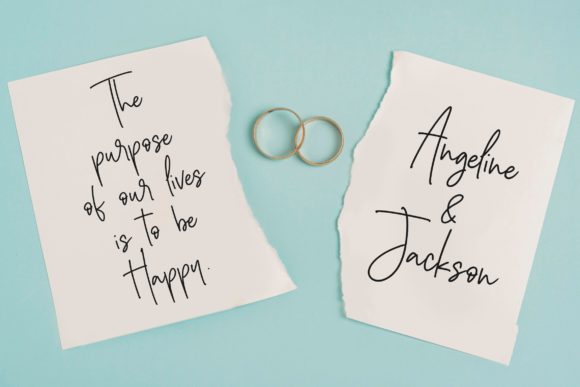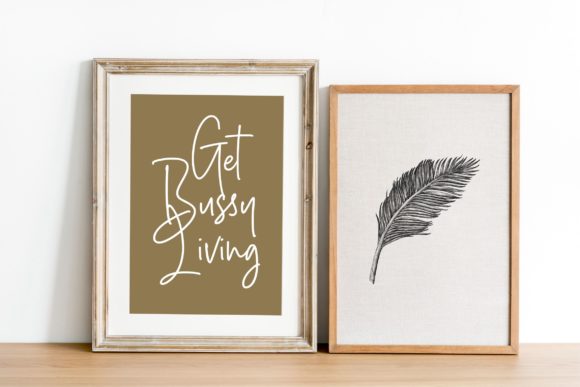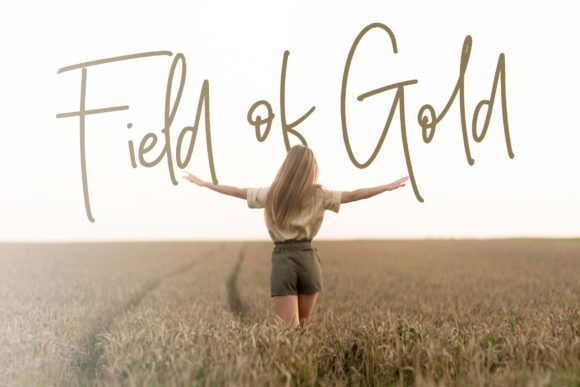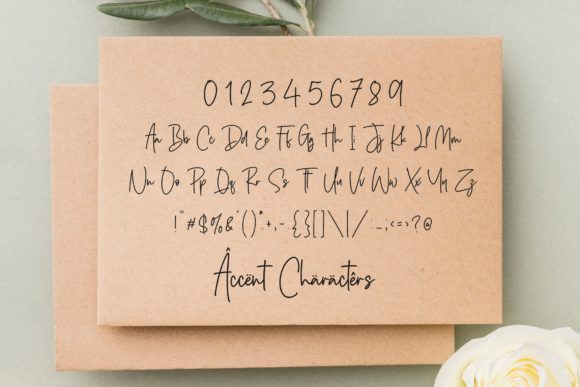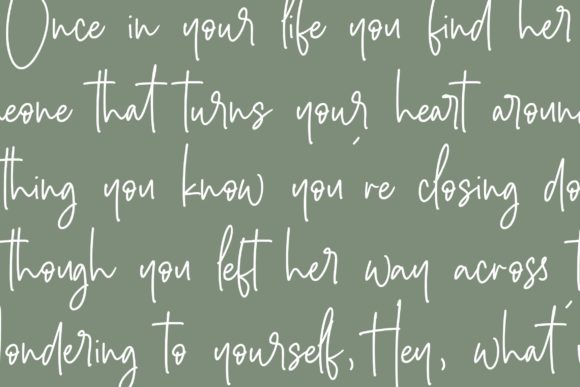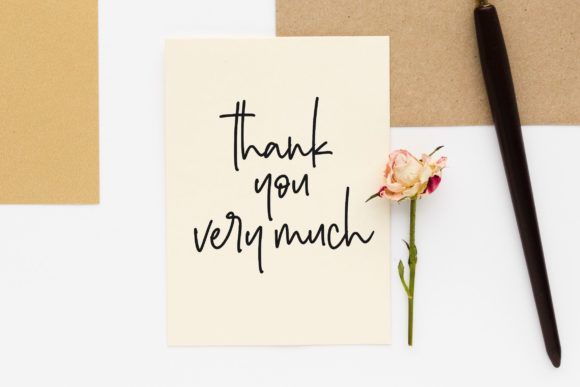
Introduction to Silver Buttercup Font
Have you ever stared at a blank canvas, feeling the weight of creativity on your shoulders, and then – BAM! – an idea strikes, and your imagination runs wild? That’s exactly what happened to me the first time I laid eyes on the Silver Buttercup Font. Its elegant, handwritten touch had me smitten, and I knew I had to dive in and explore its full potential.
The Silver Buttercup Font is more than just a pretty face – it’s a valuable design resource that can elevate your creative projects to new heights. With its high-quality, flowing script, you’ll be able to craft stunning designs that are sure to impress. Whether you’re working on a free download project or need a font for a commercial design, the Silver Buttercup Font is an excellent choice.
One of the things I love most about this font is its versatility – it looks just as beautiful on a transparent background as it does on a bold, contrasting one. And the best part? It’s a free download, making it accessible to designers of all levels.
Key Features of Silver Buttercup Font
- The Silver Buttercup Font is a high-quality design resource ideal for creative projects, offering a beautiful and elegant touch.
- This font features a transparent background, making it easy to layer and combine with other design elements.
- The Silver Buttercup Font is available in a single weight, making it easy to use in a variety of design contexts.
- The unique, hand-drawn style of the Silver Buttercup Font adds a touch of whimsy and personality to any creative project.
Honest Review: Silver Buttercup Font
I’ve had the chance to work with the Silver Buttercup Font on a recent creative project, and I must say it’s been a game-changer. This font is a fantastic design resource that can add a touch of elegance and sophistication to any project.
- ✨ High-quality font files that render beautifully on any device
- ✨ Transparent background, making it easy to work with in various design applications
However, I do have a few limitations to mention:
- ⚠️ Limited font styles available (although, the ones they do offer are excellent)
Overall, I’m thoroughly impressed with the Silver Buttercup Font. It’s a solid choice for designers looking for a high-quality, free font to add some flair to their creative projects.
How to Use Silver Buttercup Font
The Silver Buttercup Font is a high-quality, elegant design resource perfect for various creative projects. Its unique style and transparent background make it an ideal choice for designers looking to add a touch of sophistication to their work.
The Silver Buttercup Font is ideal for:
- Branding and marketing materials.
- Digital art and print designs.